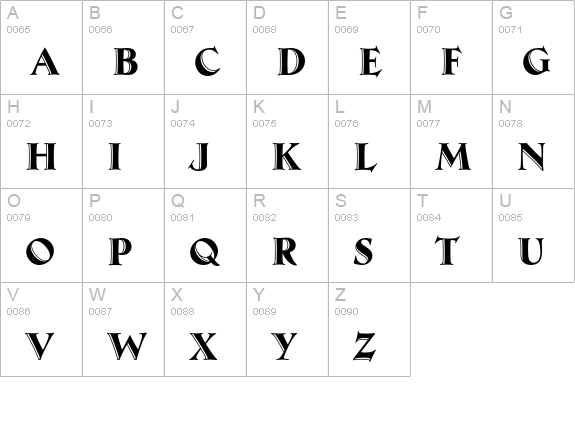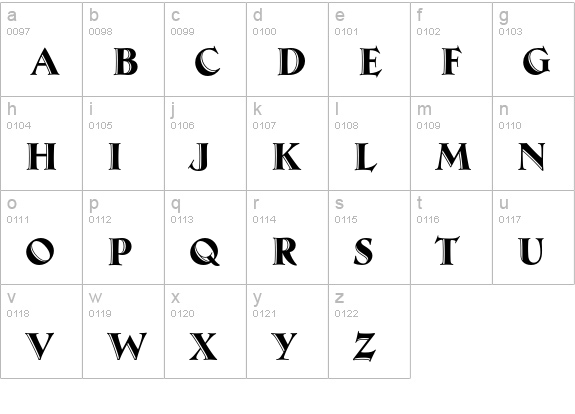
Ambrose Std Font Details
Ambrose Std is a beautifully crafted serif font that exudes elegance and sophistication. With its clean lines and classic design, Ambrose Std is perfect for a wide range of projects, from branding to editorial design. Its timeless appeal makes it a versatile choice for any designer looking to add a touch of refinement to their work. The best part? Ambrose Std is available for free download at FontsMarket.com. This means that you can easily access this exquisite font without breaking the bank. Whether you're working on a personal project or a commercial endeavor, Ambrose Std is a fantastic choice that will elevate your design to new heights. Download it today and start creating stunning and professional-looking designs with ease.